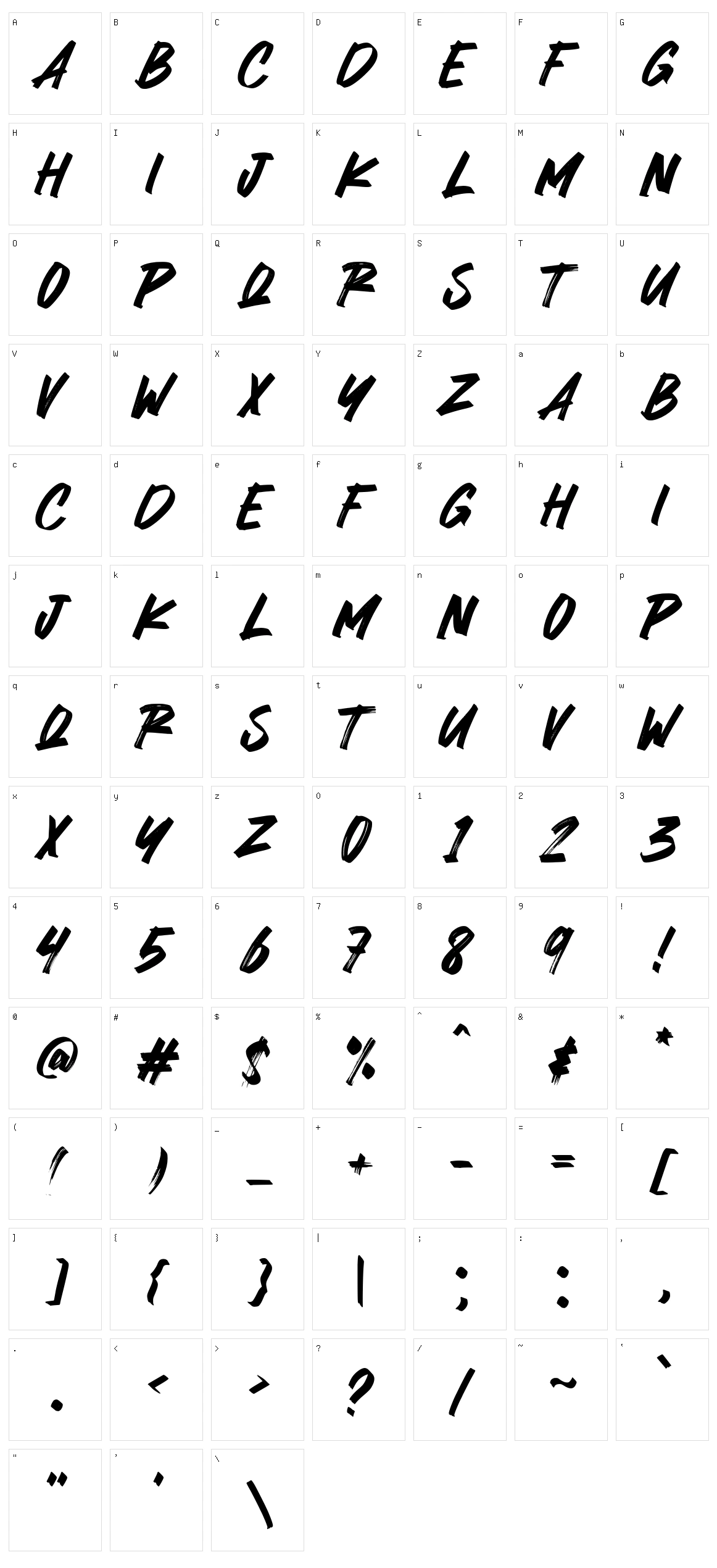
Melancoline is a brush font created with the original, handcrafted quick stroke technique!
Consists of all capital letters, gives a very strong and confident impression.
Melancoline also includes LA LE LI LO LU LH ligatures in it, for unique requirements for the word you want.
You can use Melancoline repeatedly for your design needs such as branding projects, web banner, quotes, homeware designs,
product packaging, headlines, simply as a stylish text overlay to any background image, etc.